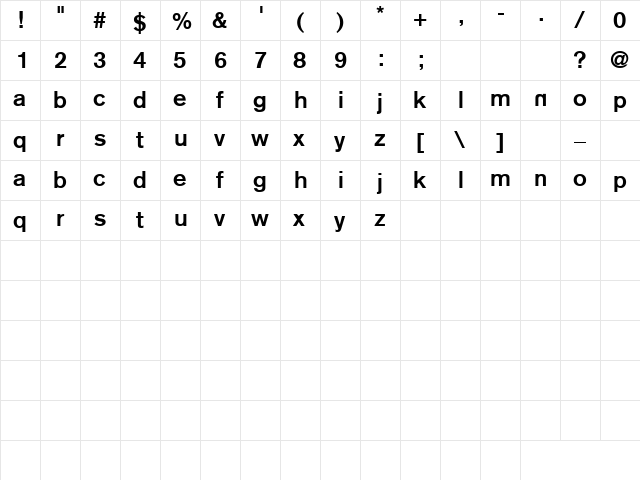
Reznor Broken
| Copyright | This is the font found on the covers of the Nine Inch Nails CD's "Broken" and "Fixed" |
Reznor is a composed and adaptable typeface that performs quietly and consistently across a wide range of design contexts.